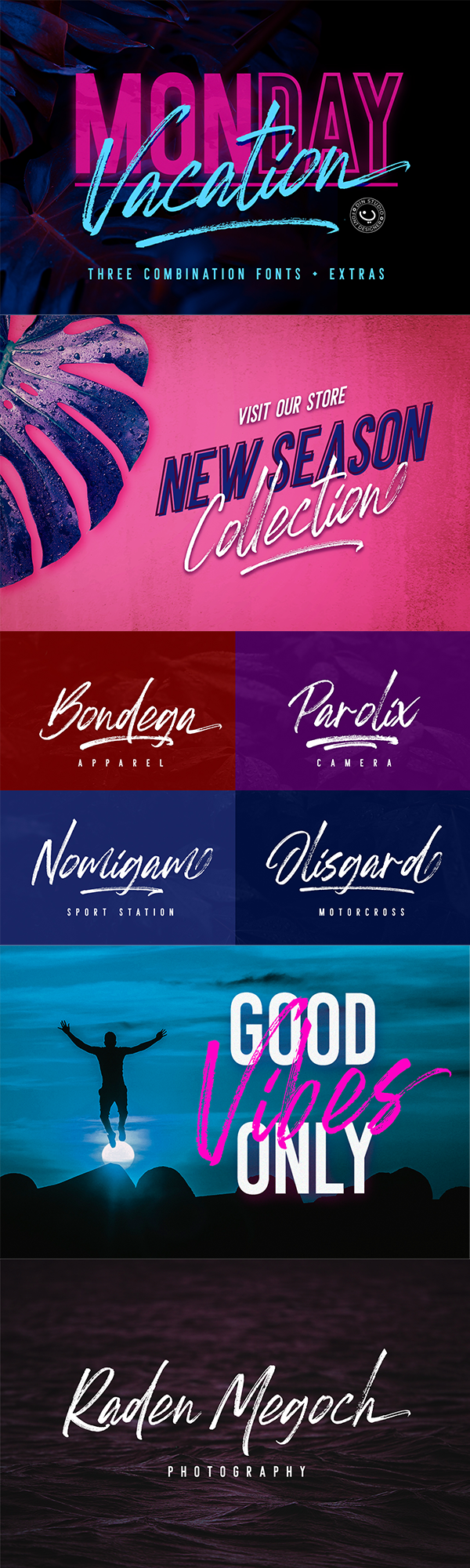
Introducing Monday Vacation Font. Link 1 : https://creativemarket.com/donism Link 2 : https://fontbundles.net/din-studio Monday Vacation is a brush font and combines with sans font (Solid +outline). Made with naturally brush. The texture from the brush font will make your design more beautiful and powerful. This font is suitable for any design like branding, quotes, t-shirt printing and etc. Included: Monday Vacation Regular Monday Vacation Italic Monday Vacation Sans Solid Monday Vacation Sans Outline Monday Vacation Extra |